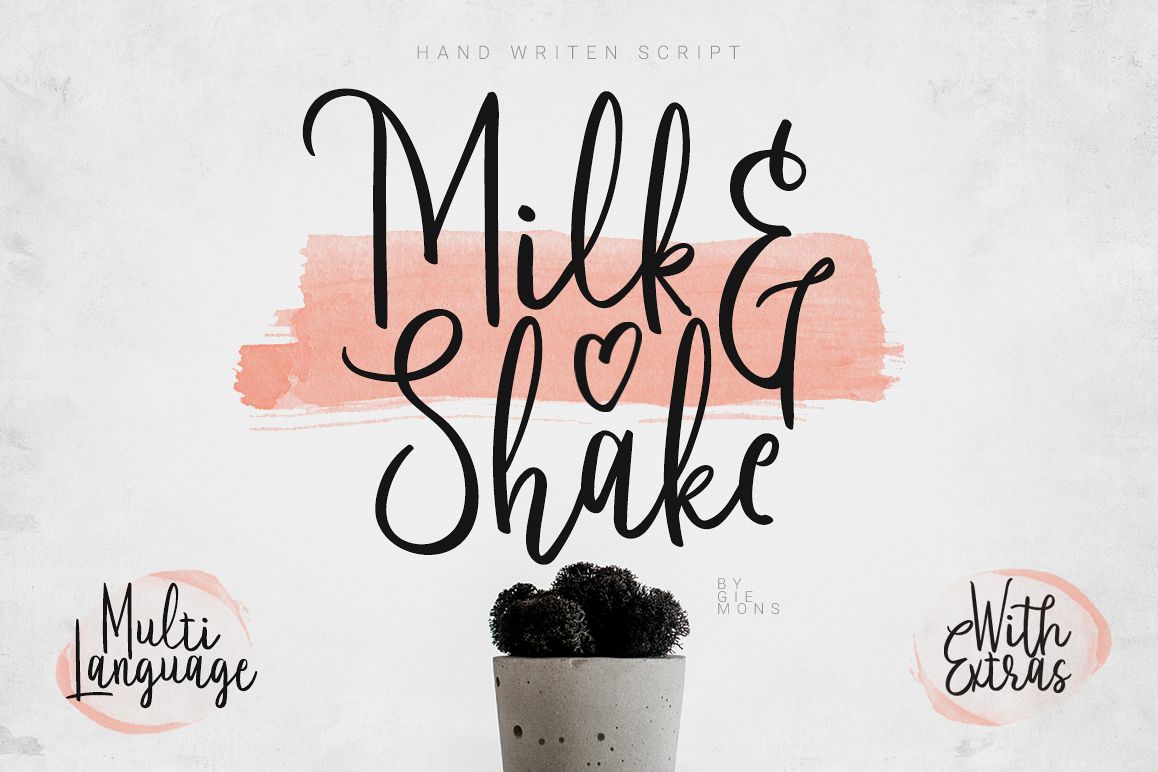
Milkandshake Script
MilkandShake-Regular
a Milkandshake Script is unique handwriting font and also has cute lettering font. Can make it easier to convey the message in your design. Use for awesome display, wedding, birthday, labeling, clothing, movie sceen, poster, movie title, gigs, album covers, logos, and much more.Include :
• Uppercases & Lowercases
• Numerals & Punctuations
• Lowercase Alternates
• Uppercase Alternates
• Multilanguage Support